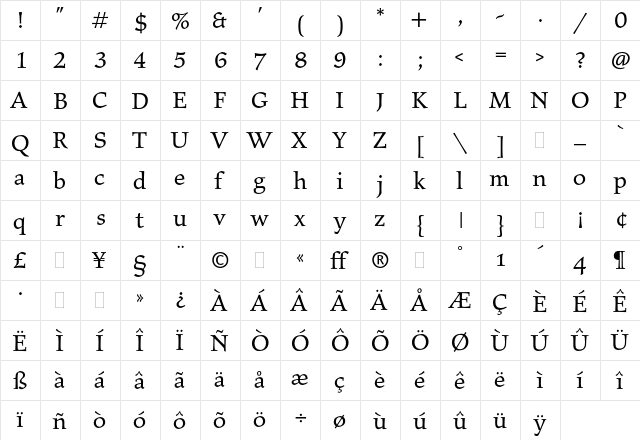
Elysium Book Plain
Design Context for Elysium Book Typeface
Elysium Book takes a measured approach to typography — its balanced proportions and neutral character make it a reliable workhorse for both digital and print work.